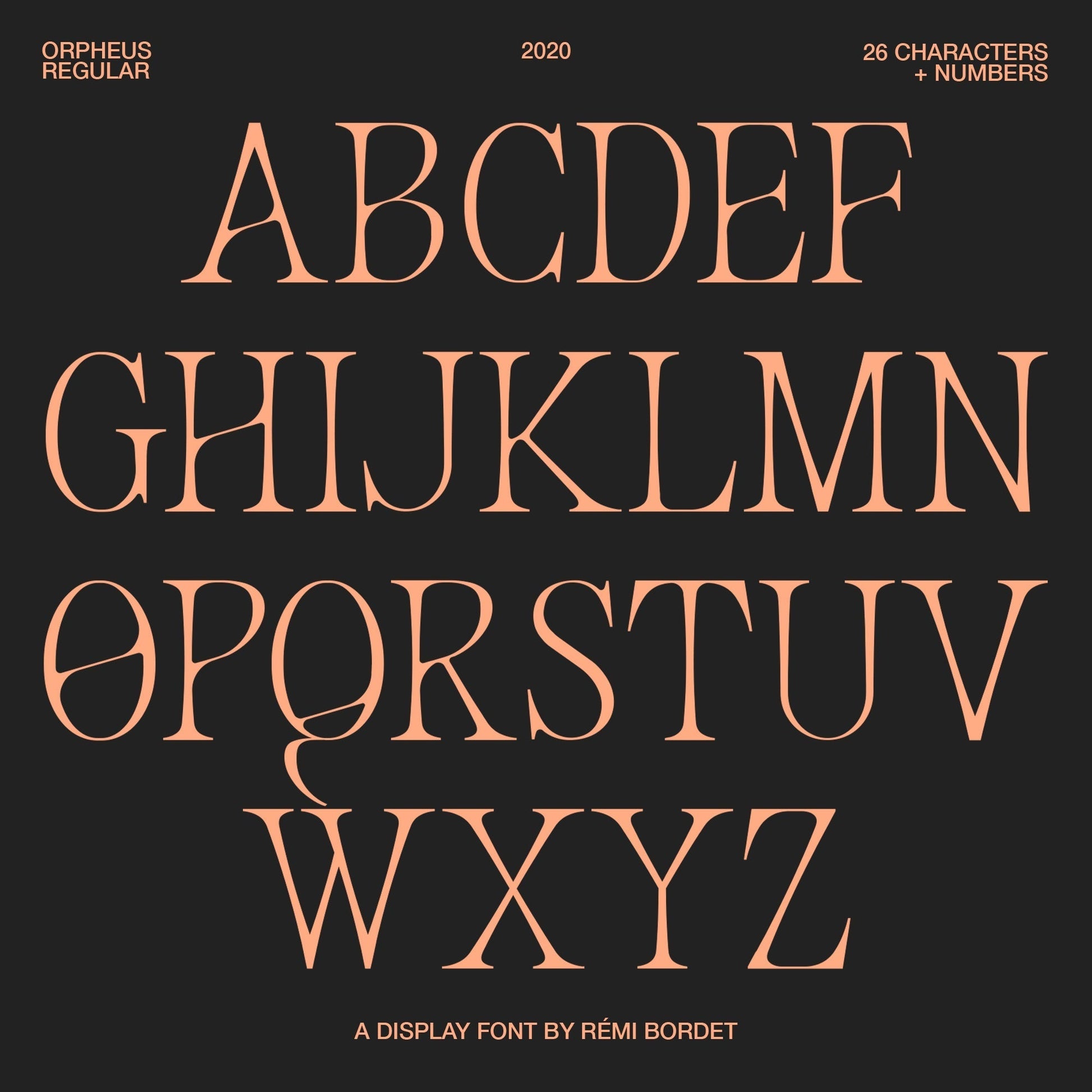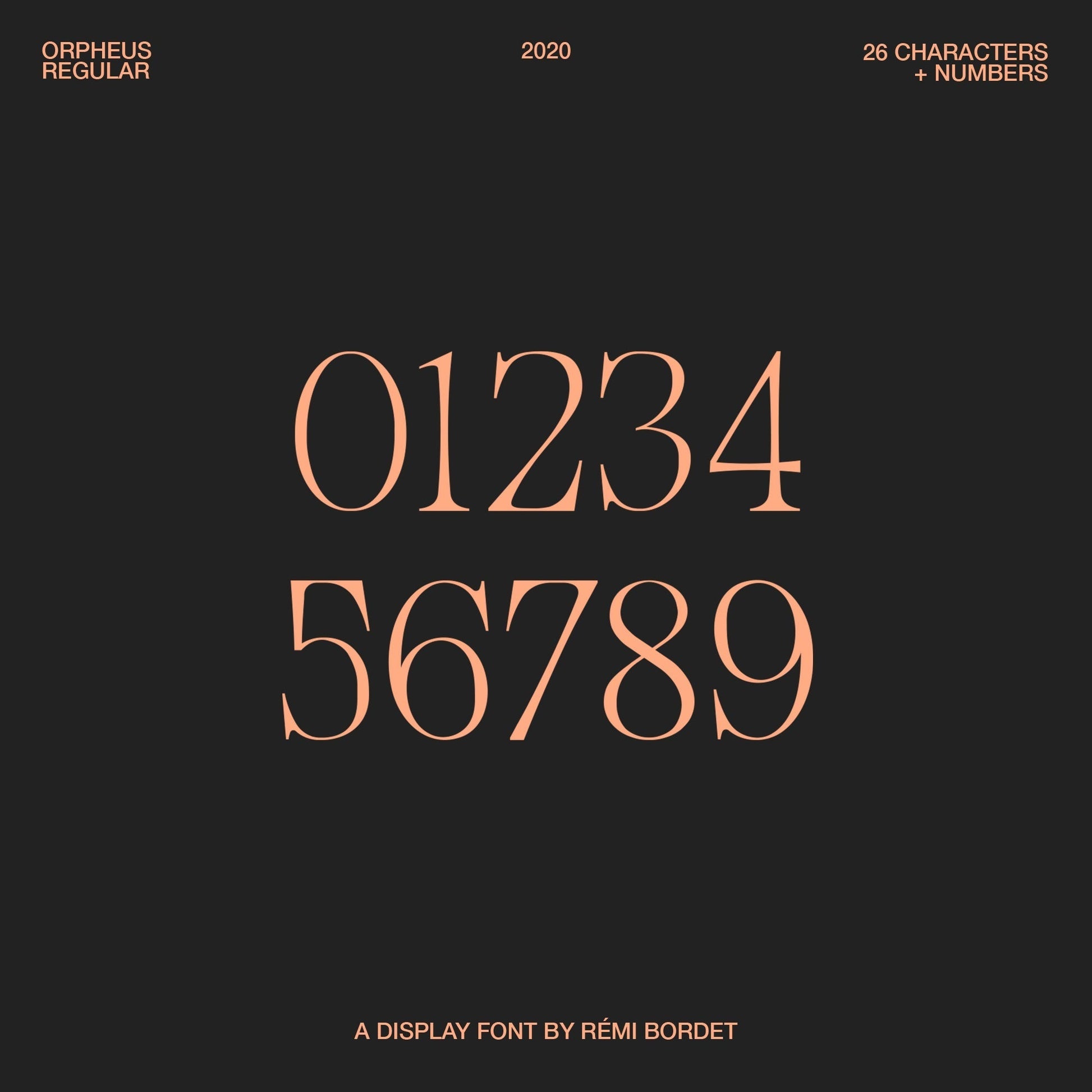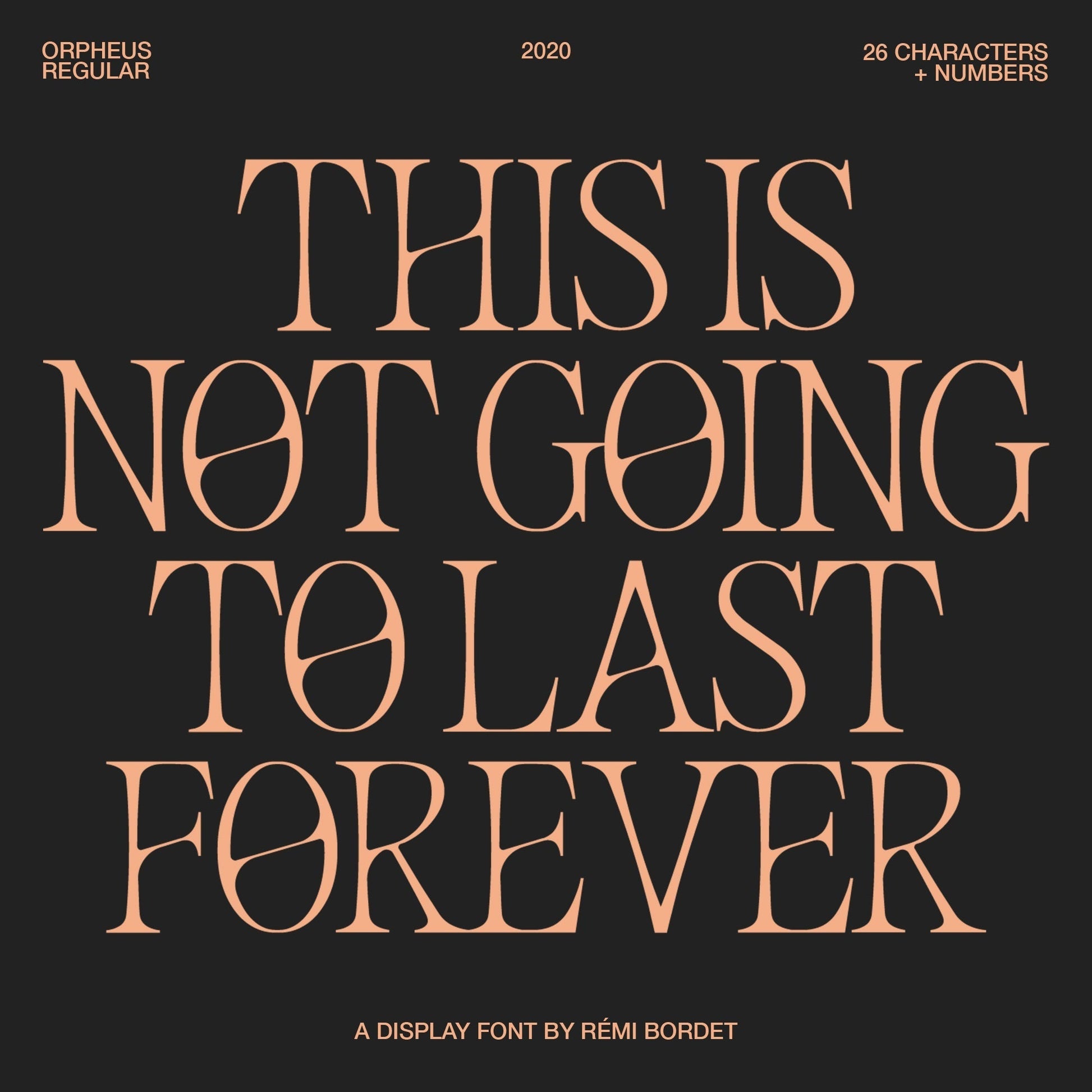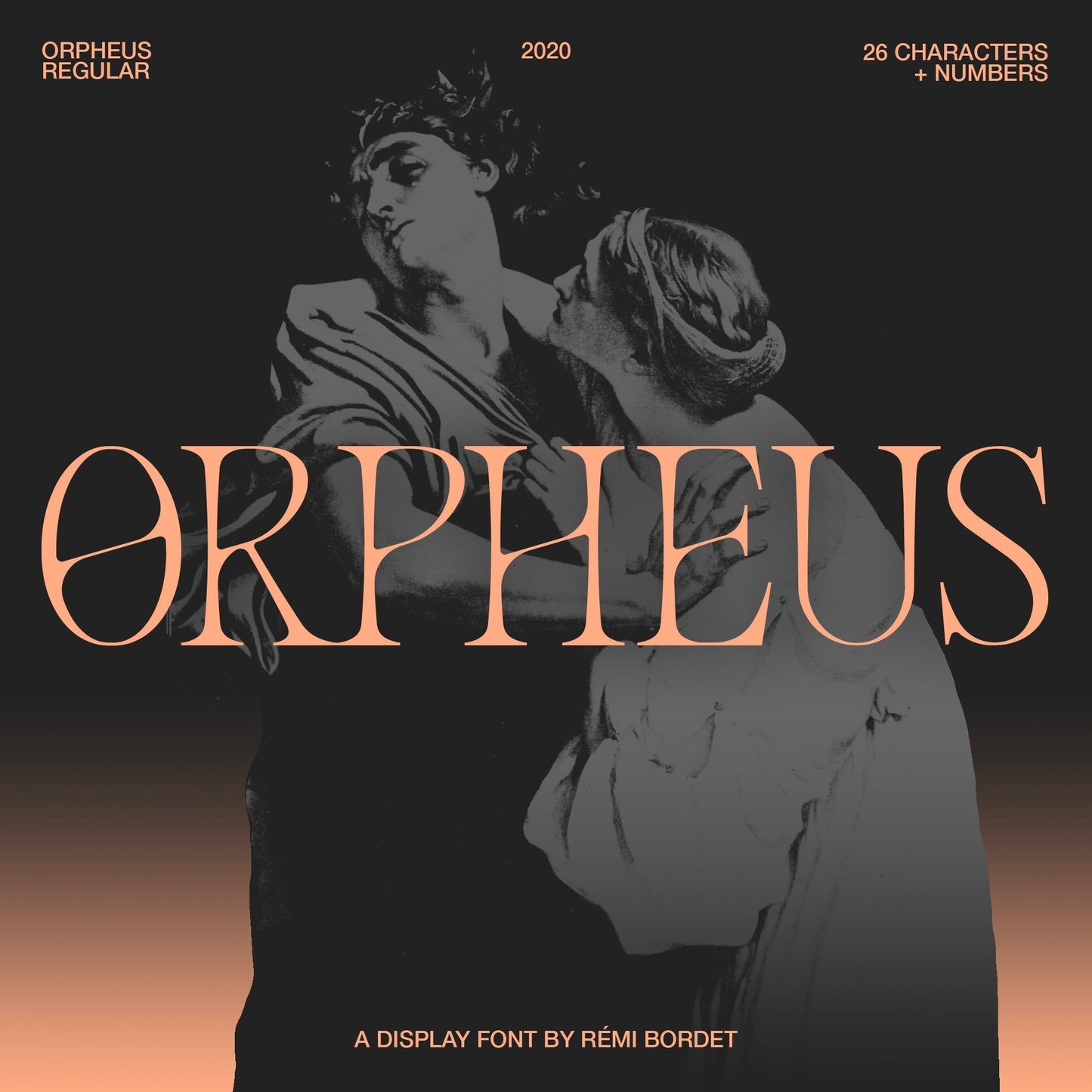
Orpheus is an elegant display face with soft rounded elements which provide a nature ink bleed look. Great for intricate apparel detailing and poster designs.